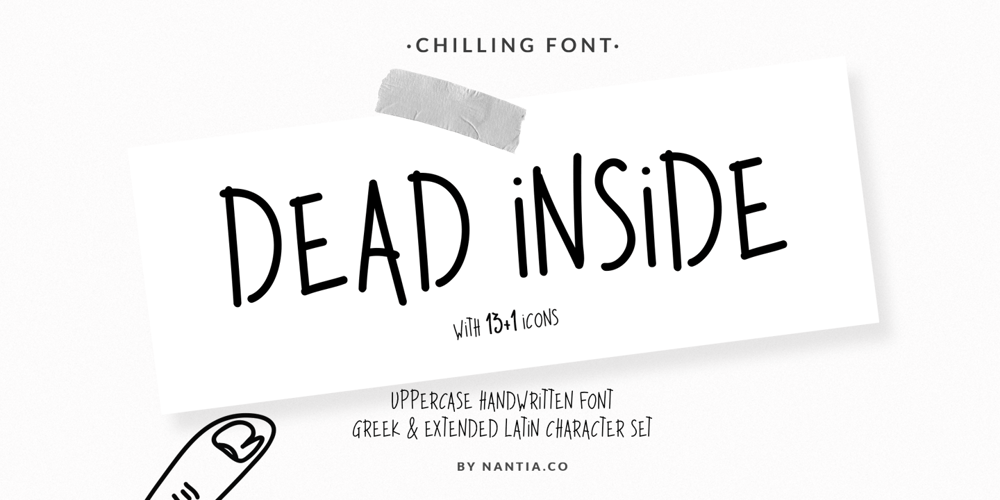
Dead Inside Font Family was designed by Konstantina Louka and published by Nantia.co. Dead Inside contains 1 styles and family package options. Is it Halloween yet? Dead Inside Chilling Font is an adorable hand-made typeface with 13+1 chilling icons, for the upcoming Halloween.